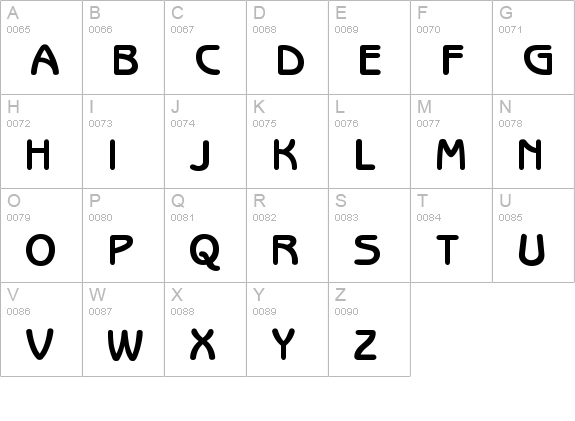
Benguiat Gothic Bold is a striking and versatile font that exudes power and modernity. With its bold and distinctive appearance, this font is perfect for making a statement in headlines, titles, and branding materials. The strong, clean lines of Benguiat Gothic Bold make it stand out on any design project, whether it's for print or digital use. The best part? Benguiat Gothic Bold is available for free download at FontsMarket.com. This means you can easily access this impressive font for your personal or commercial projects without breaking the bank. Enhance your designs with the bold and impactful style of Benguiat Gothic Bold today!